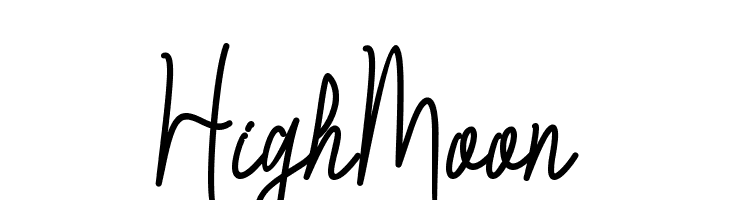
A lively and expressive handwritten font with dynamic strokes.
An elegant, cursive font with flowing, graceful letterforms and bold numerals.
A graceful and fluid script font with a modern calligraphic style.
A dynamic, expressive handwritten font with fluid, connected strokes.
A dynamic and flowing script font with elegant, fluid strokes.
A dynamic and expressive handwritten font with fluid, flowing letterforms.
An elegant script font with flowing, interconnected letters and graceful swashes.
A playful, handwritten font with fluid strokes and a lively aesthetic.
An elegant, cursive font with flowing, intricate designs.
A dynamic handwritten font with expressive, flowing strokes and a casual, artistic style.